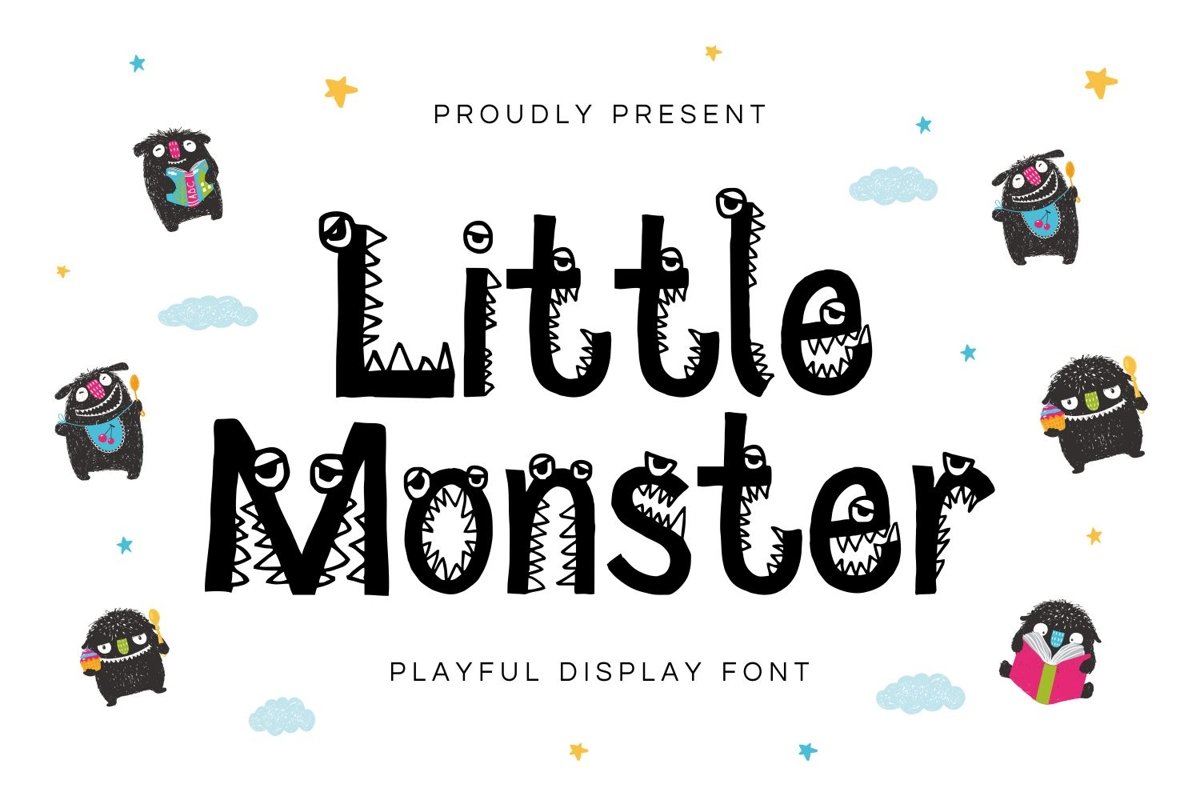
Little Monster is sans serif display come with playful themes. We wanted to create the most unique. It matches applies in some designs such as the logotype, brand, packaging, quotes, pet poster, kids shirt, cover book, birthday invitation and more custom design. The features uppercase, lowercase, numeral, punctuation & symbol, multilingual support, PUA encoded (fully accessible without additional design software).
Little Monster